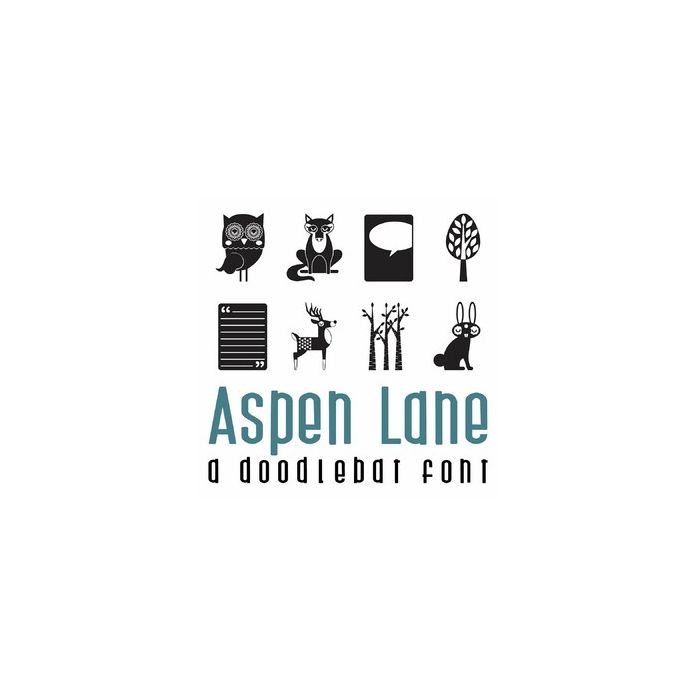
This fun doodlebat font features 26 fall and forest images, including animals, trees and project life style cards. Perfect for cards, gifts, decor, crafts, scrap book pages, planner stickers and more!